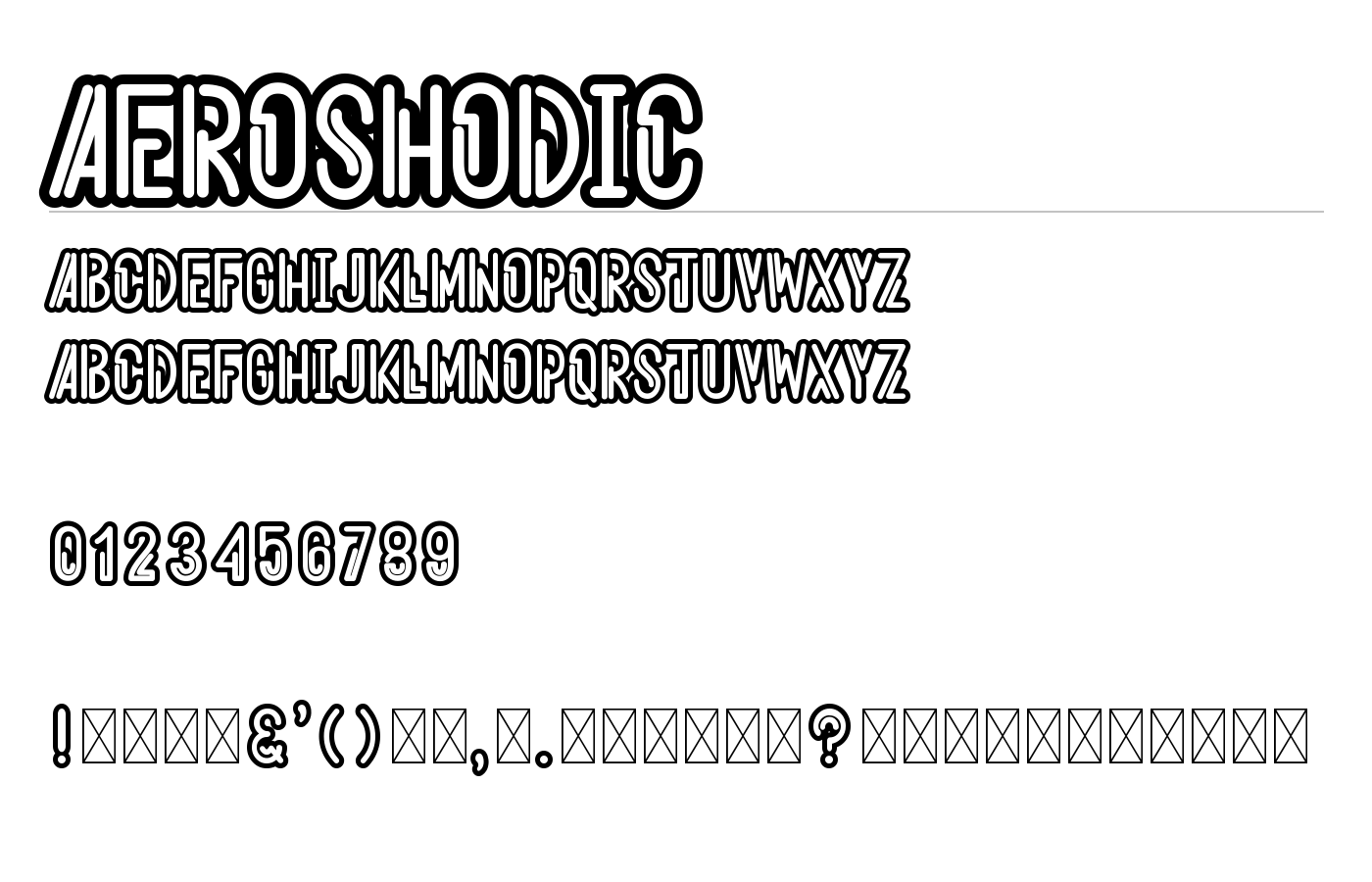
Aeroshodic is a bold, condensed sans serif font with a modern and playful personality, characterized by its thick outlines and hollow interiors that create a striking, layered effect. Its tall x-height and clean, geometric letterforms give it strong visibility and a dynamic, contemporary vibe, making it ideal for eye-catching headlines, logos, and packaging that require a distinctive, energetic look. This font works best in designs seeking a fresh, urban style with a touch of bold creativity.
Aeroshodic Font
About Aeroshodic Font